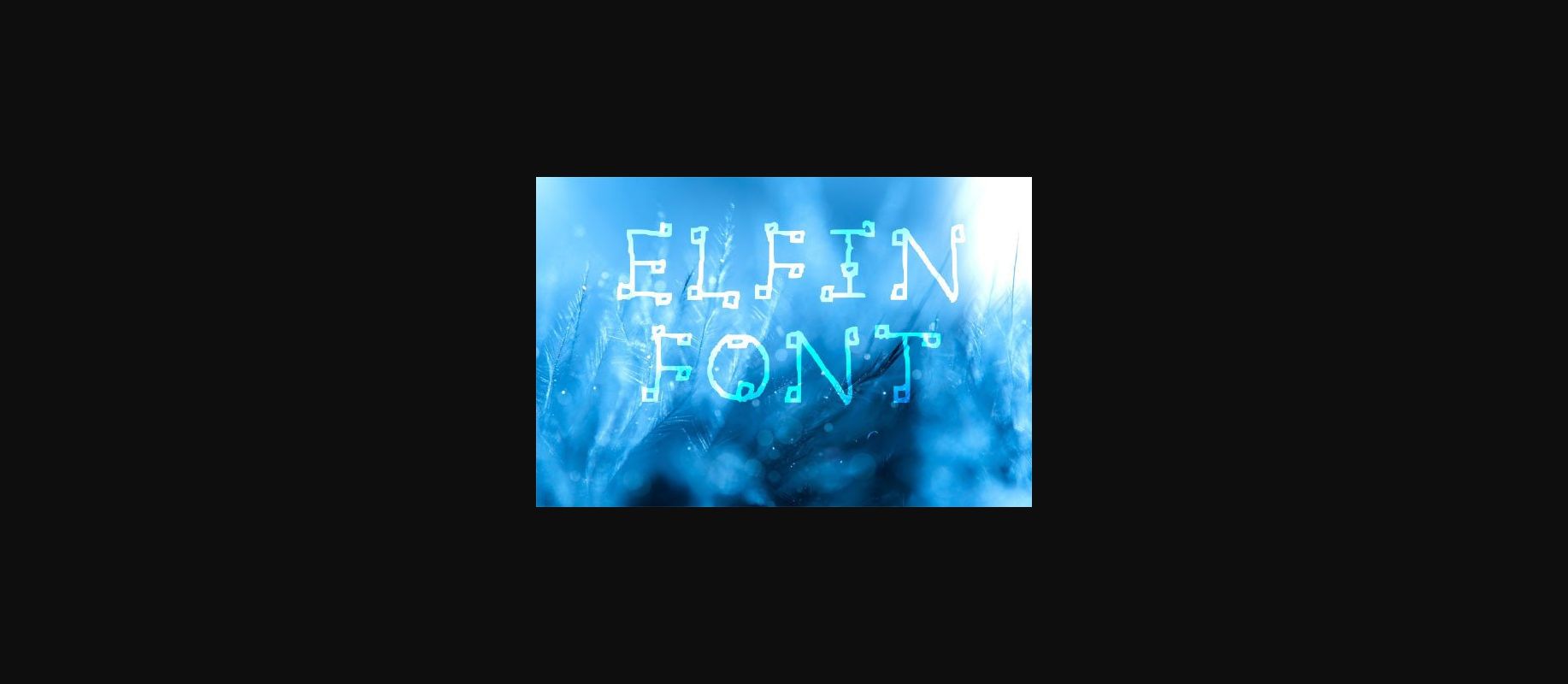
HomeDecorative FontsElfin Font Decorative Fonts Elfin Font FacebookXPinterestWhatsApp 1 of 4 ... Elfin Font Poster 2... Elfin Font Poster 3... Elfin Font Poster 4... About Elfin Font Elfin is a lovely decorative font featuring characters decorated with little squares. It looks simple and hand-made but still has a special whimsical twist. DOWNLOAD NOW People also explored Not a Student Font Captain Jacky Font Sweetie Font Oniely Font Christmas Tree Monogram Font Delumba Font Botanical Garden Font Hippies Font Lovely Dream Font 463 0 TagsElfinElfin Font Previous articleMelista Monogram FontNext articleRatio Font LEAVE A REPLY Cancel reply Comment: Please enter your comment! Name:* Please enter your name here Email:* You have entered an incorrect email address! Please enter your email address here Website: Save my name, email, and website in this browser for the next time I comment. Personal Use Free Vogue Font Personal Use Free Read more about this font Bulky Personal Use Free Read more about this font Short Message Personal Use Free Read more about this font Ardilla Font Personal Use Free Read more about this font BLOG Using Fonts in Digital Marketing: Tips to Strengthen Your Brand Identity In the realm of digital marketing, every visual element plays a crucial role in shaping a brand's identity, and fonts are no exception. The... Transform Your Website: Elevate Your Typography with 7 Best Web Font Generators Best Fonts for YouTube Videos: Make Your Thumbnails Stand Out How to Cut Any Font on Cricut: Convert a Font to SVG (Free)